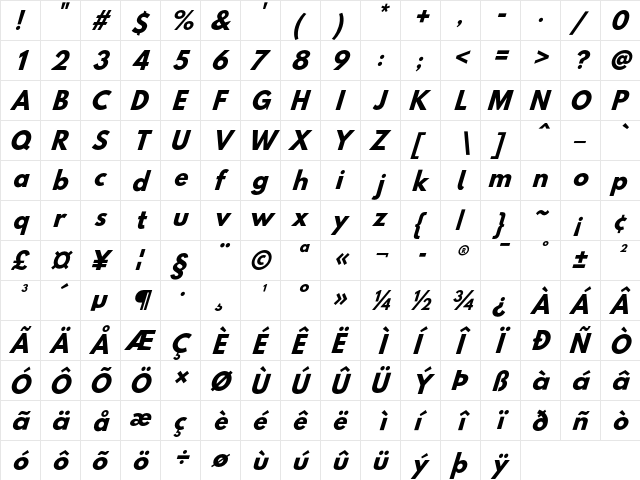
Hussar BdConOblThree Font Preview
Hussar BdConOblThree
Hussar BdConOblThree Font Details
| Style | BdConOblThree |
| Foundry | Cannot Into Space Fonts |
Design Context for Hussar Typeface
Hussar takes a measured approach to typography — its balanced proportions and neutral character make it a reliable workhorse for both digital and print work.